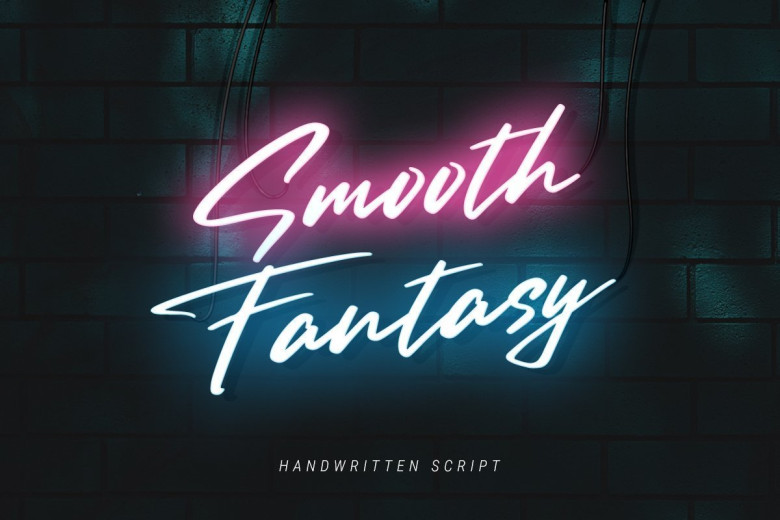
Smooth Fantasy Handwritten Script Font
Introducing Smooth Fantasy Script Font for your amazing project. With a chic and natural handwritten style, it brings a beautiful typeface. Smooth Fantasy is best used for logotype, branding, quotes, and ect.